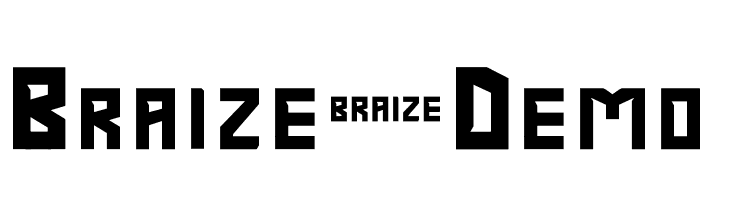
A bold, fragmented font with a shattered glass effect, featuring angular and irregular shapes.
A playful, handwritten font with tall, narrow characters and a whimsical style.
A tall, narrow handwritten font with a clean, minimalist style.
A bold, playful font with a hand-drawn, melted appearance.
A bold, geometric font with a modern, industrial style.
A bold, gothic-inspired font with sharp, angular edges and a dramatic flair.
A bold, gothic-inspired font with sharp, angular edges and high contrast.
A bold, dynamic font with sharp, angular edges and a calligraphic flair.